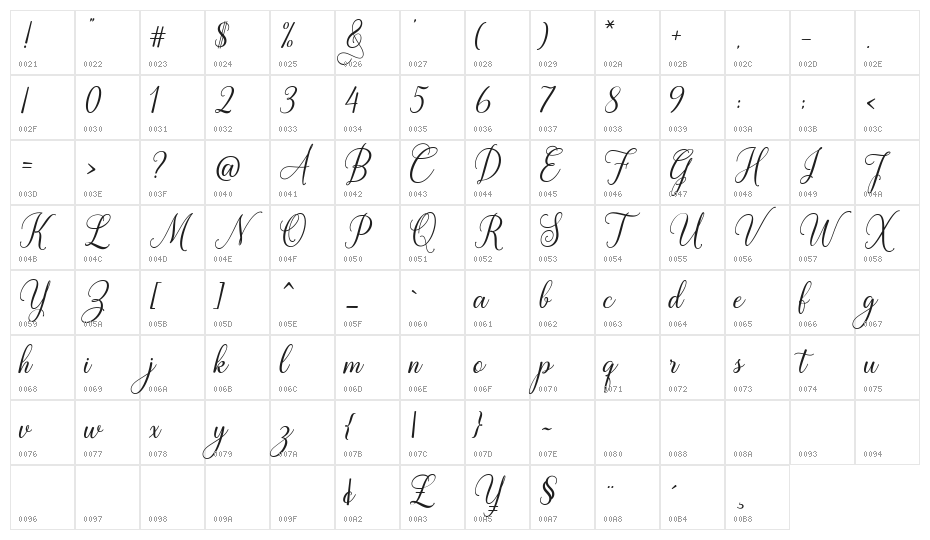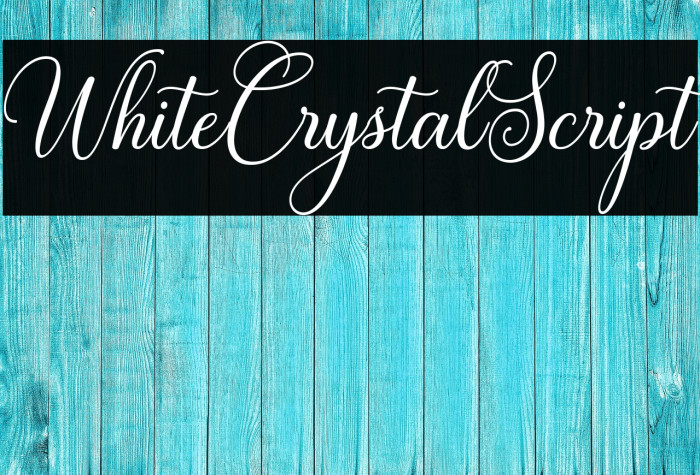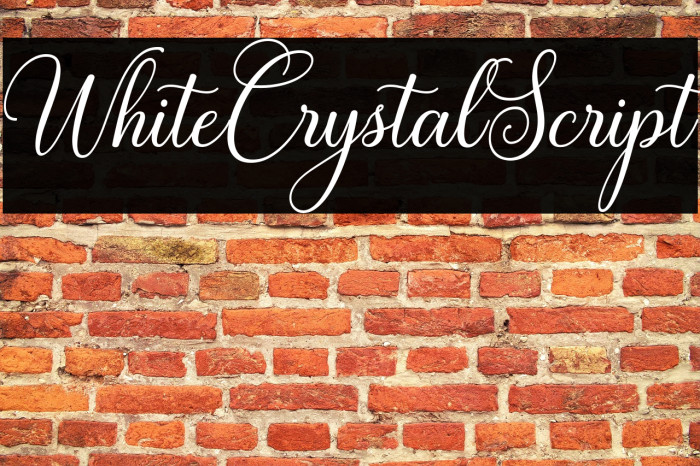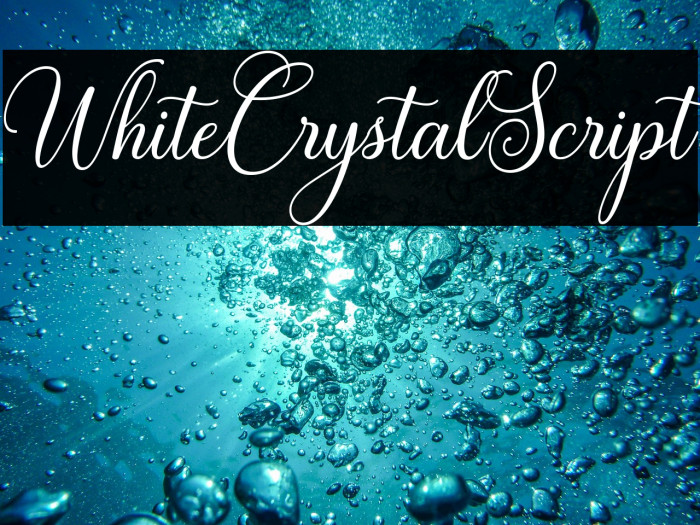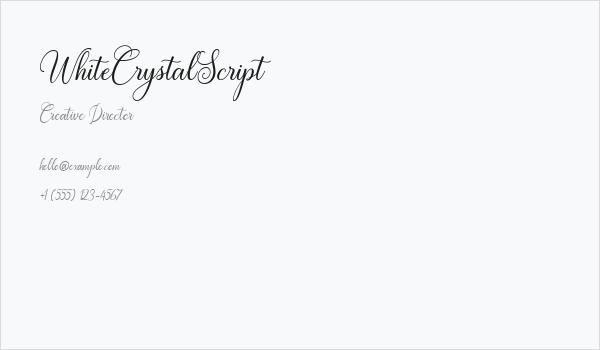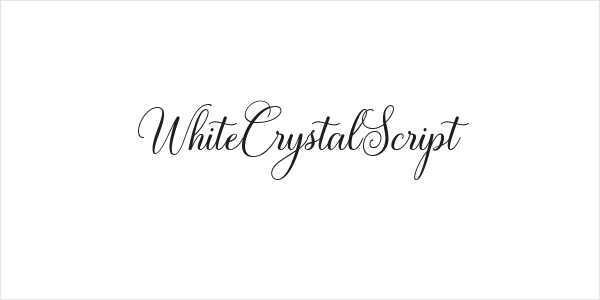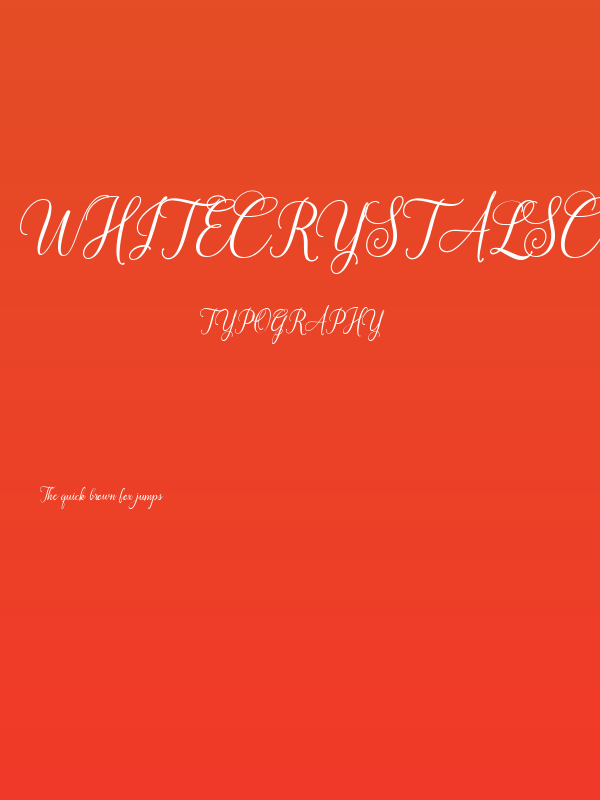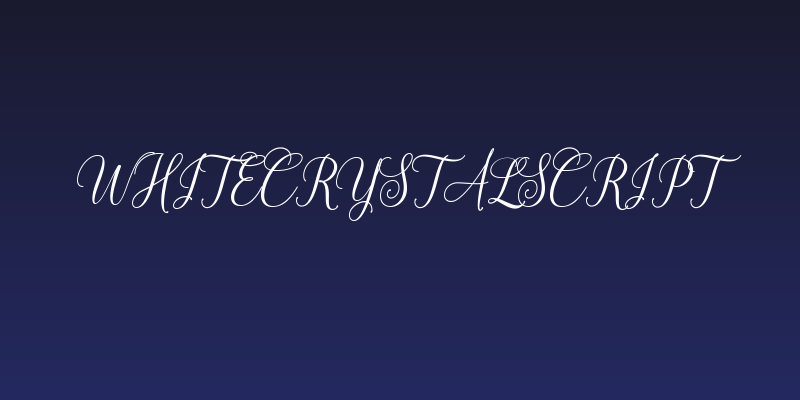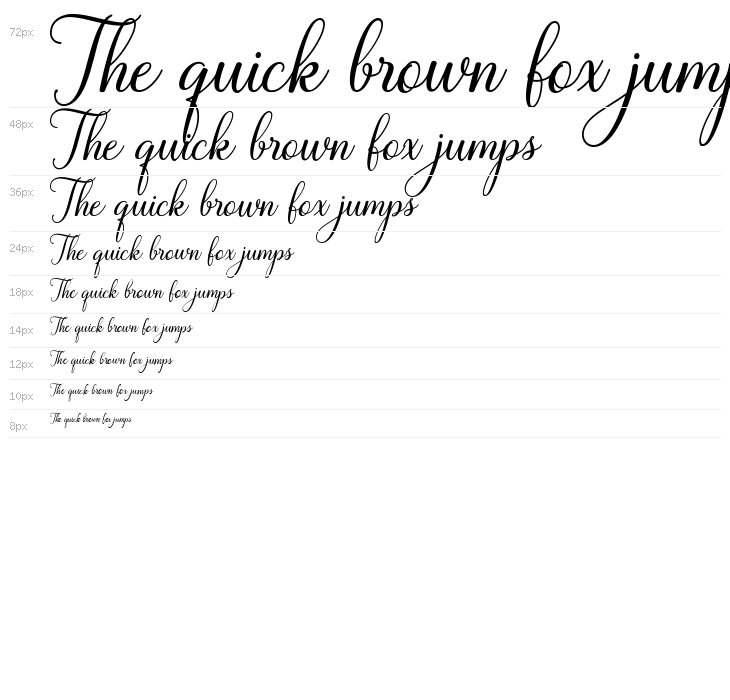
WhiteCrystalScript Font
WhiteCrystalScript Description
This elegant script font features flowing, interconnected characters with a refined and sophisticated appearance. The uppercase letters are tall and graceful, with delicate loops and flourishes that add a touch of luxury. The lowercase letters maintain a consistent style, offering smooth transitions and a harmonious flow. The numerals are stylishly integrated, matching the overall aesthetic with their curvy lines. Special characters are thoughtfully designed, enhancing the font's versatility. This script is perfect for creating a sense of elegance and class in any design project.
| Overall Style | Elegant |
| Use Case | Logos, Invitations, Branding |
| Proposed Projects | Ideal for wedding invitations, luxury branding, elegant stationery, and high-end product packaging. |